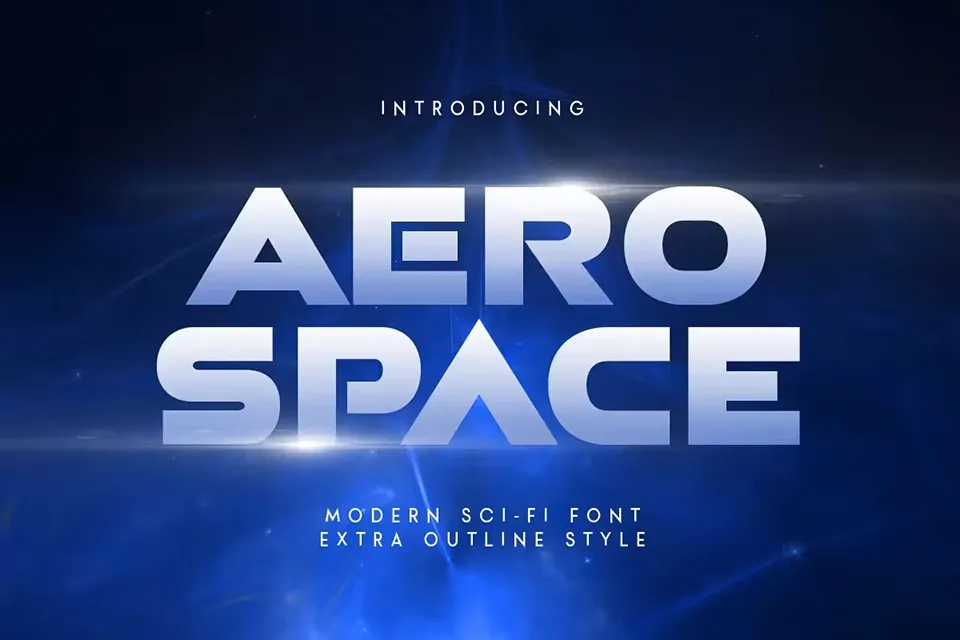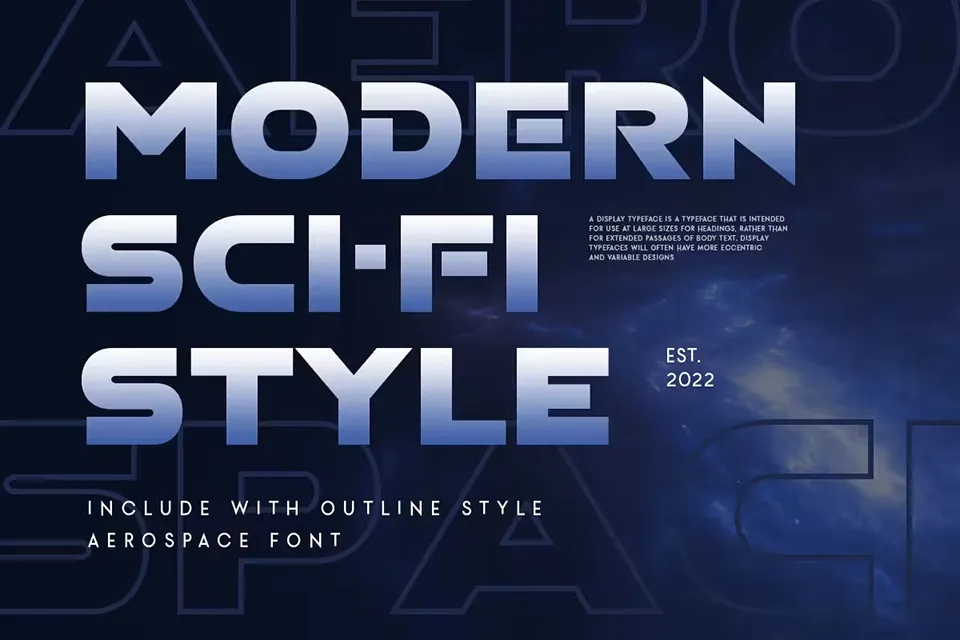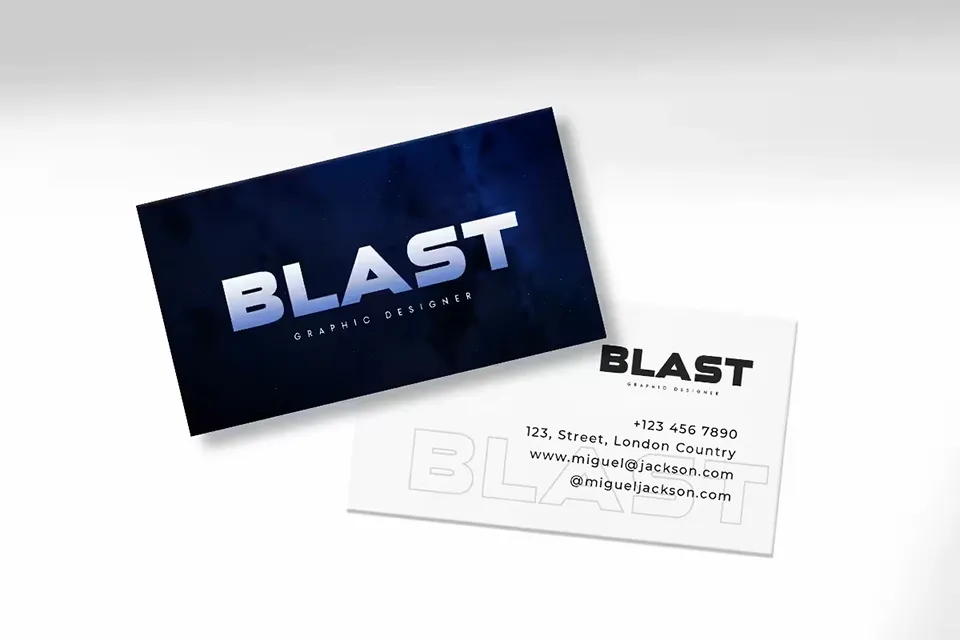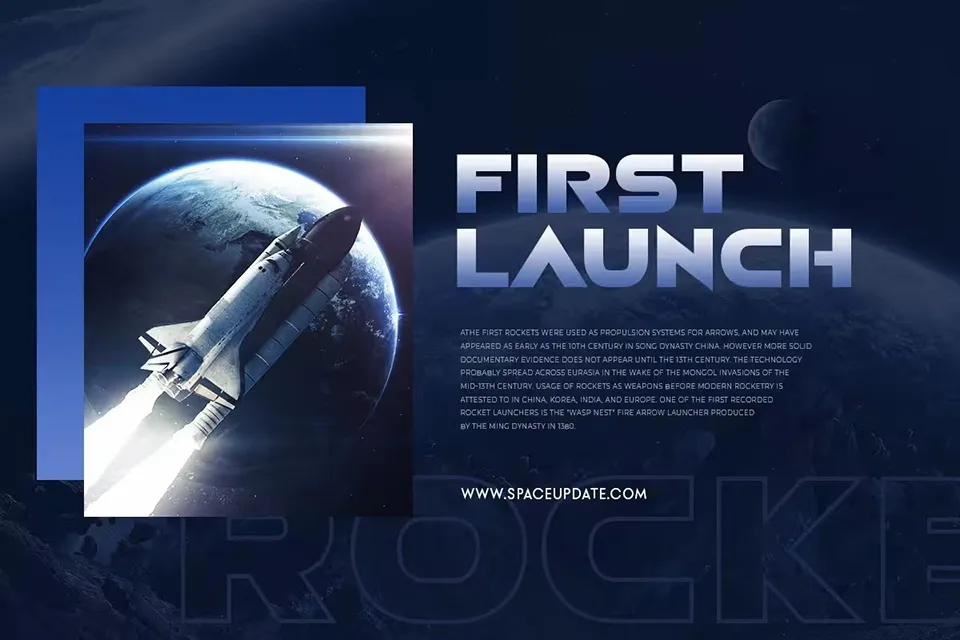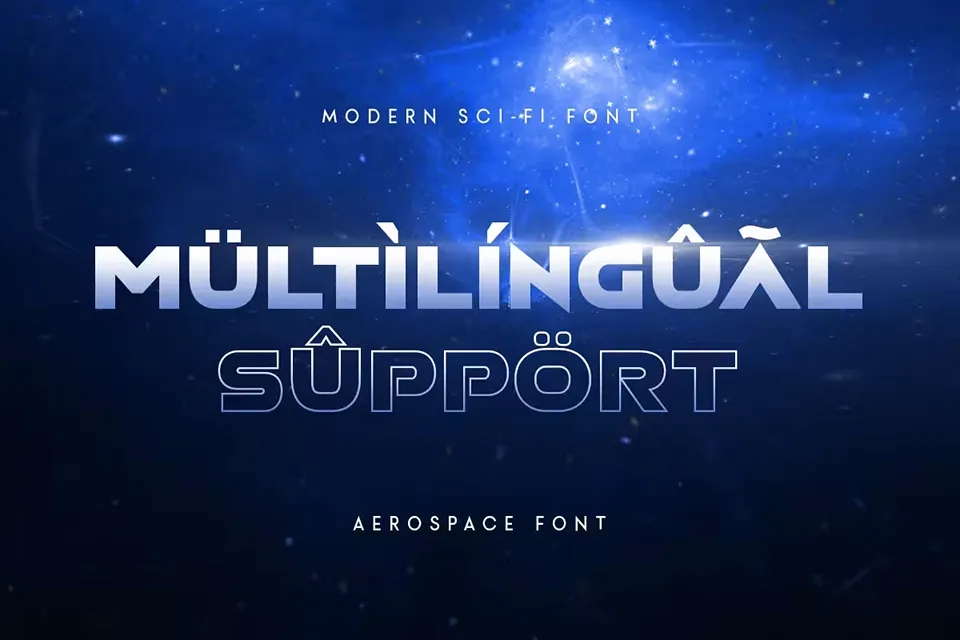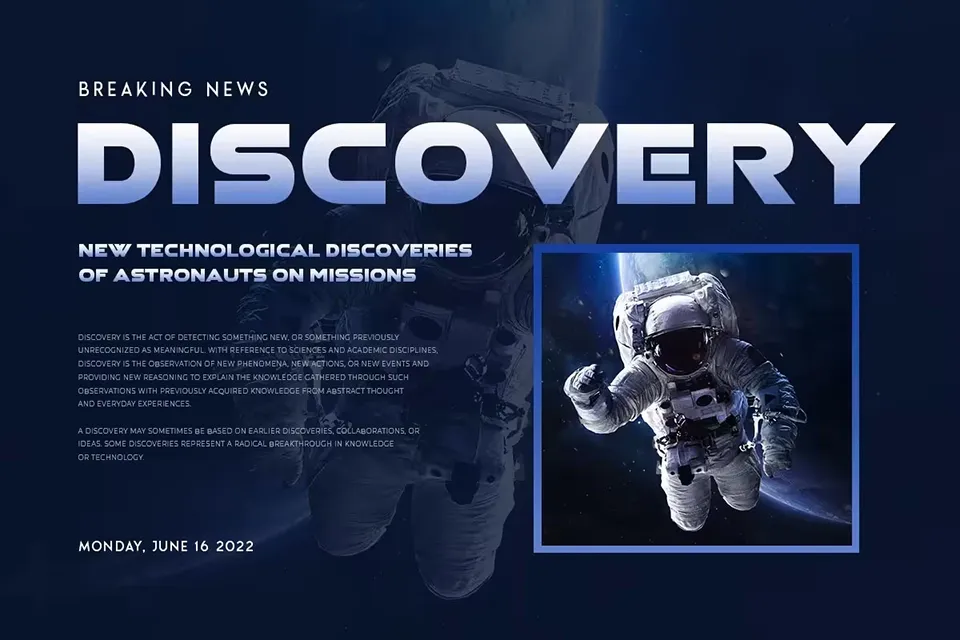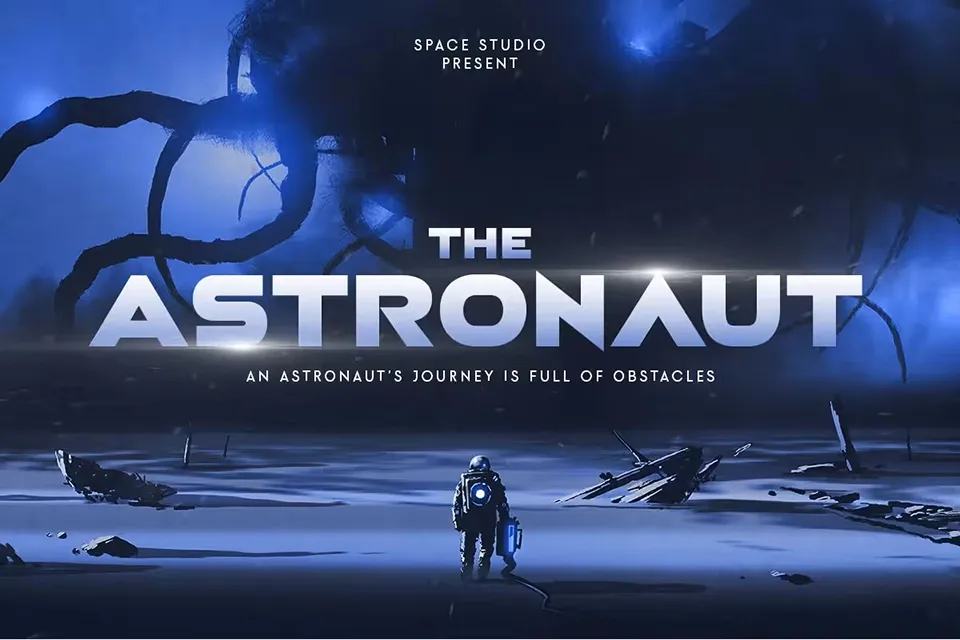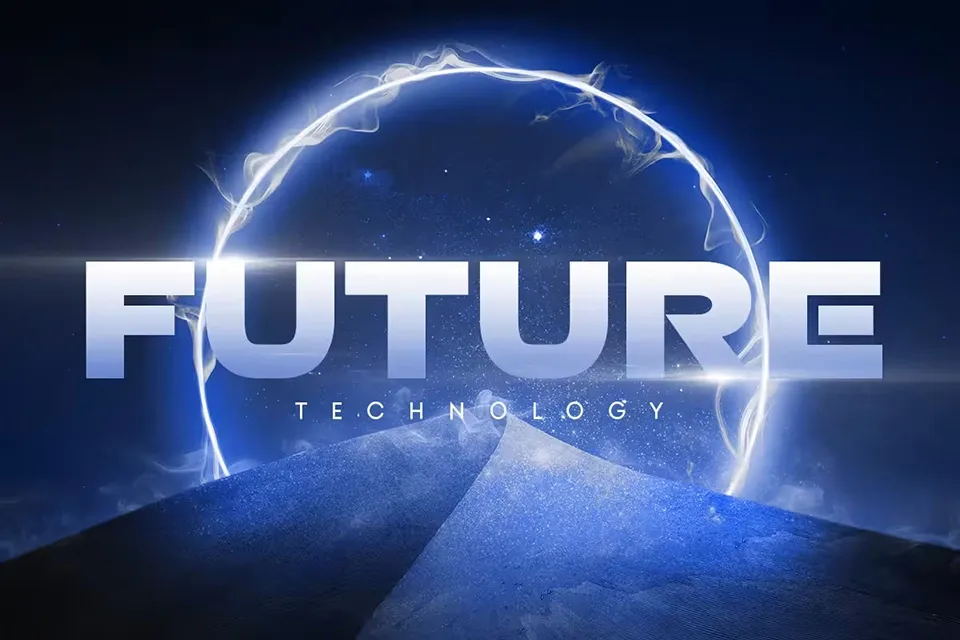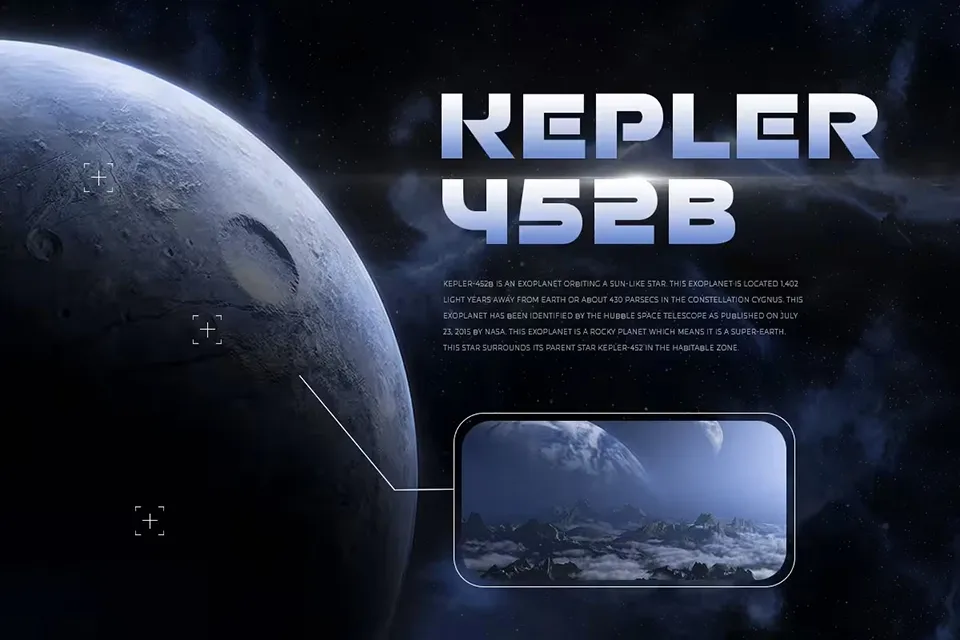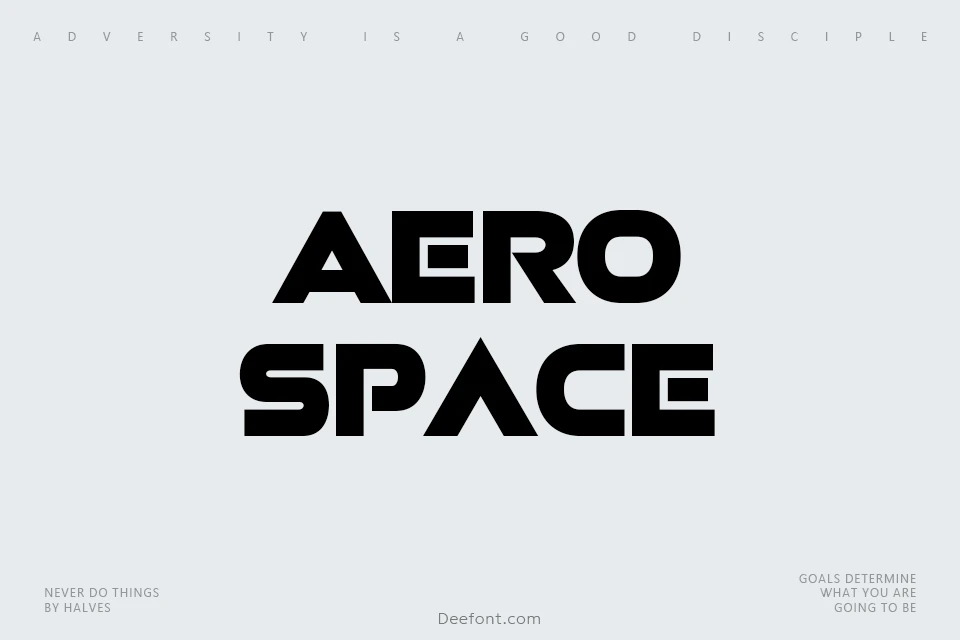
Aerospace Font
Aerospace Font is a cutting-edge modern sci-fi typeface designed to capture the essence of futuristic exploration and technology. Featuring bold, geometric uppercase letterforms with clean lines and striking angles, Aerospace commands attention in any design project. The font’s sleek, contemporary aesthetic is enhanced by its extra outline style option, providing versatility for various applications from movie posters to gaming interfaces. Set against cosmic backgrounds, Aerospace creates an immediate sense of innovation and discovery. Perfect for tech companies, space-themed projects, digital media, and forward-thinking brands seeking to convey sophistication and advancement. Aerospace doesn’t just display text—it launches your creative vision into new dimensions.